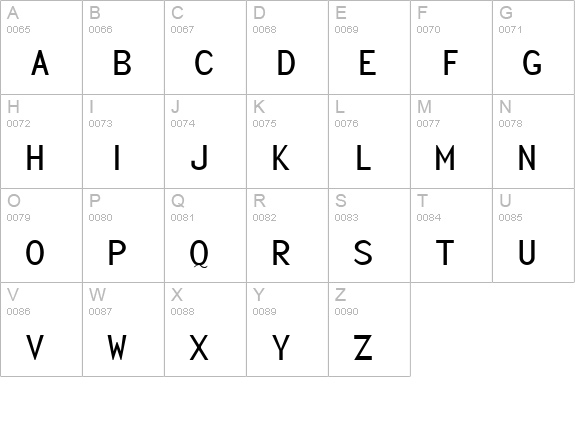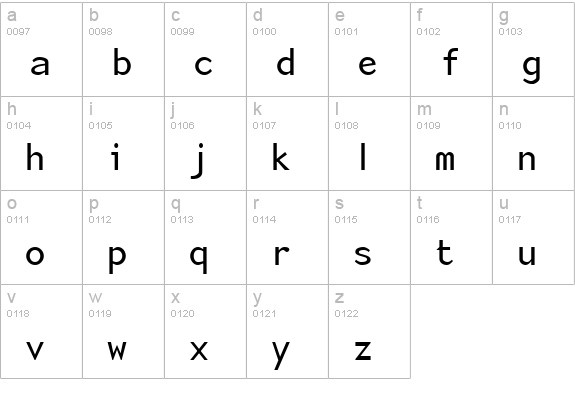
Monotony Medium is a balanced, medium-weight variant in the Monotony typeface family \xE2\x80\x94 well suited to sub-headlines, navigation, and balanced editorial work.
Monotony Medium font is a modern and sleek typeface that exudes simplicity and elegance. Its clean lines and balanced proportions make it perfect for a wide range of design projects, from branding to editorial design. The medium weight strikes the ideal balance between being bold enough to make a statement and light enough to maintain readability. What sets Monotony Medium font apart is not only its timeless design but also its accessibility - it is available for free download at FontsMarket.com. This means that designers and creatives can easily incorporate this versatile font into their projects without any cost, making it a valuable addition to any font library. Whether you're working on a website, a logo, or a print layout, Monotony Medium font offers a reliable and stylish option that will enhance the overall look and feel of your designs. Embrace the simplicity and sophistication of Monotony Medium font today and elevate your design projects to new heights.